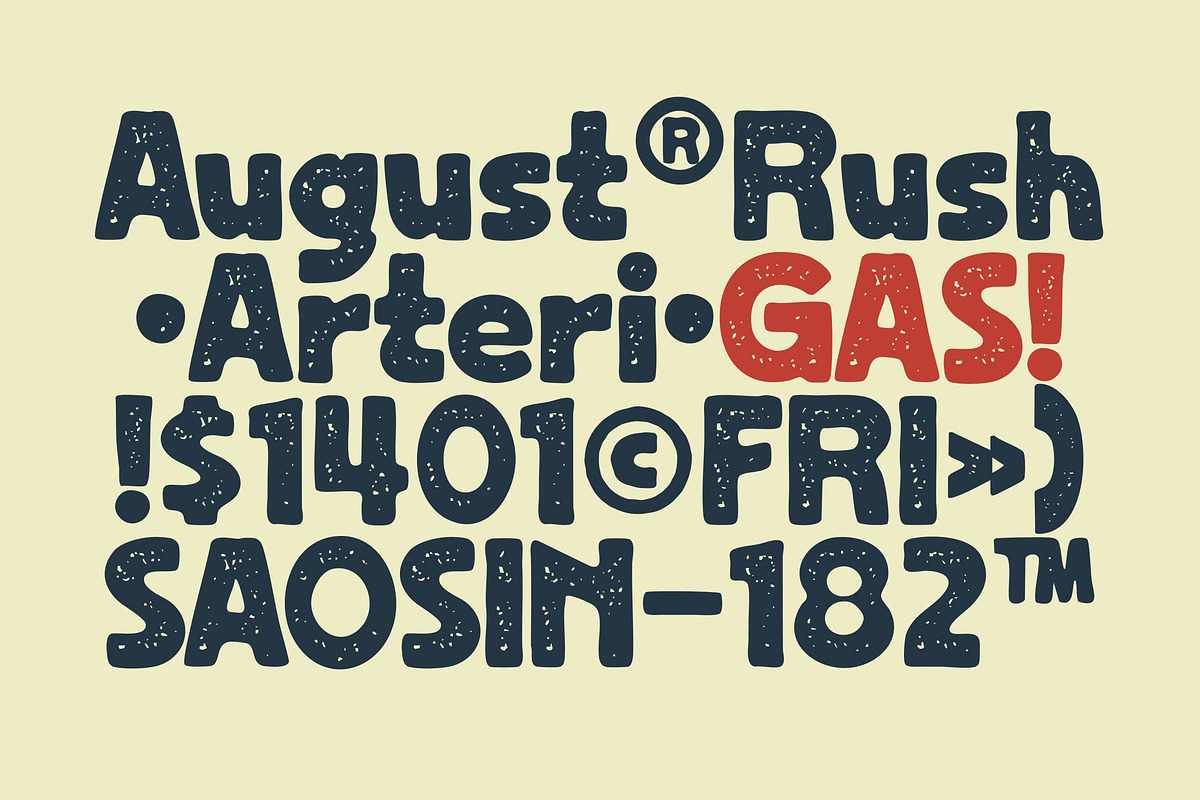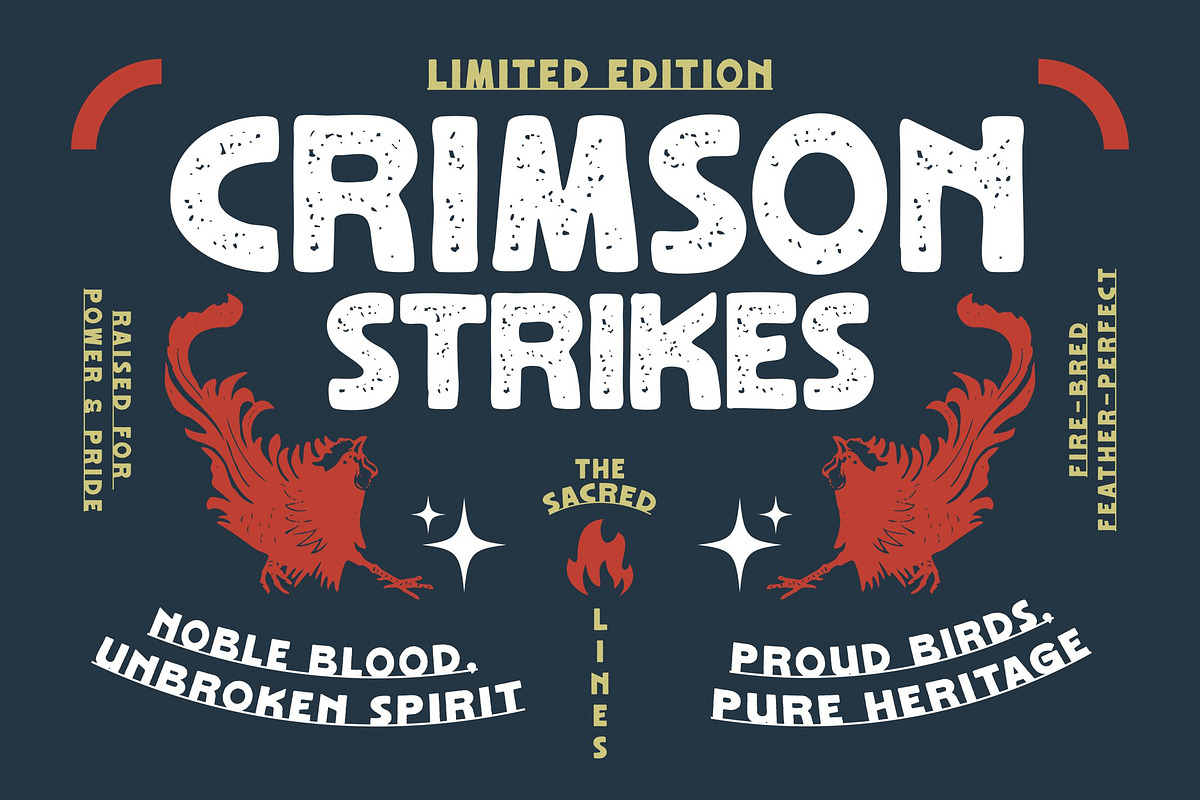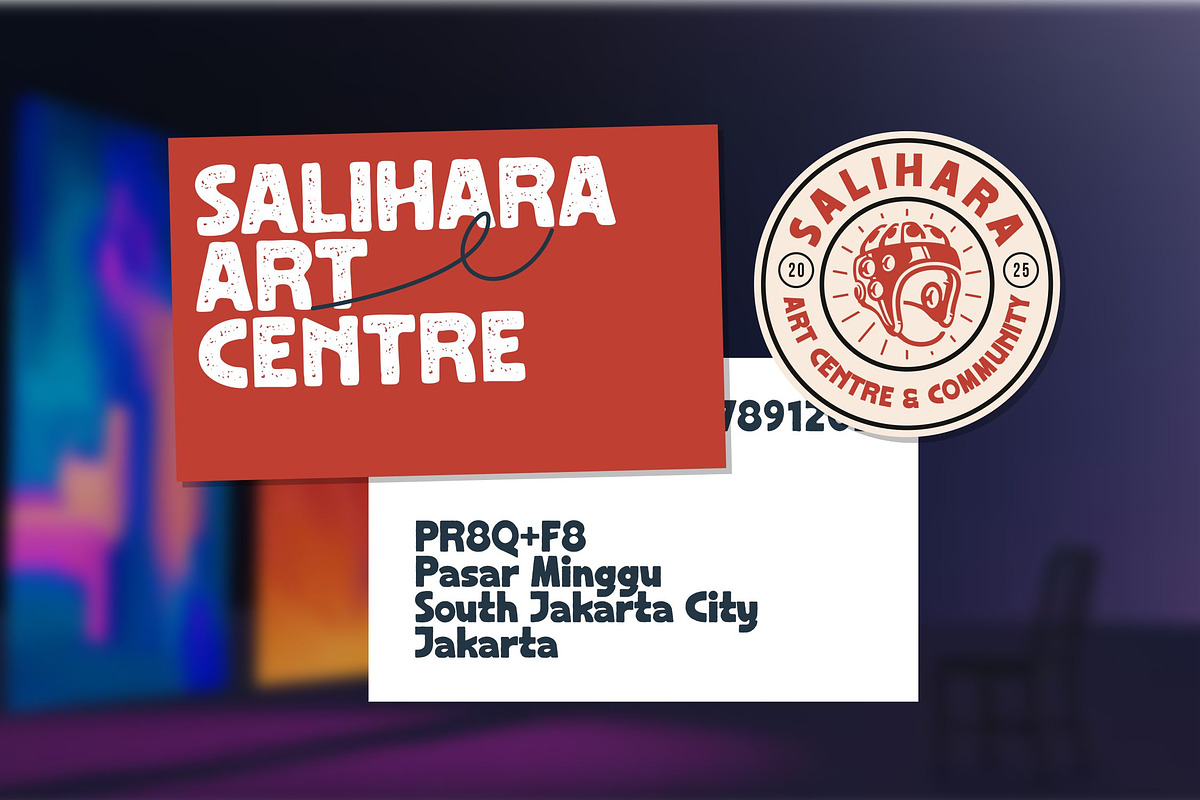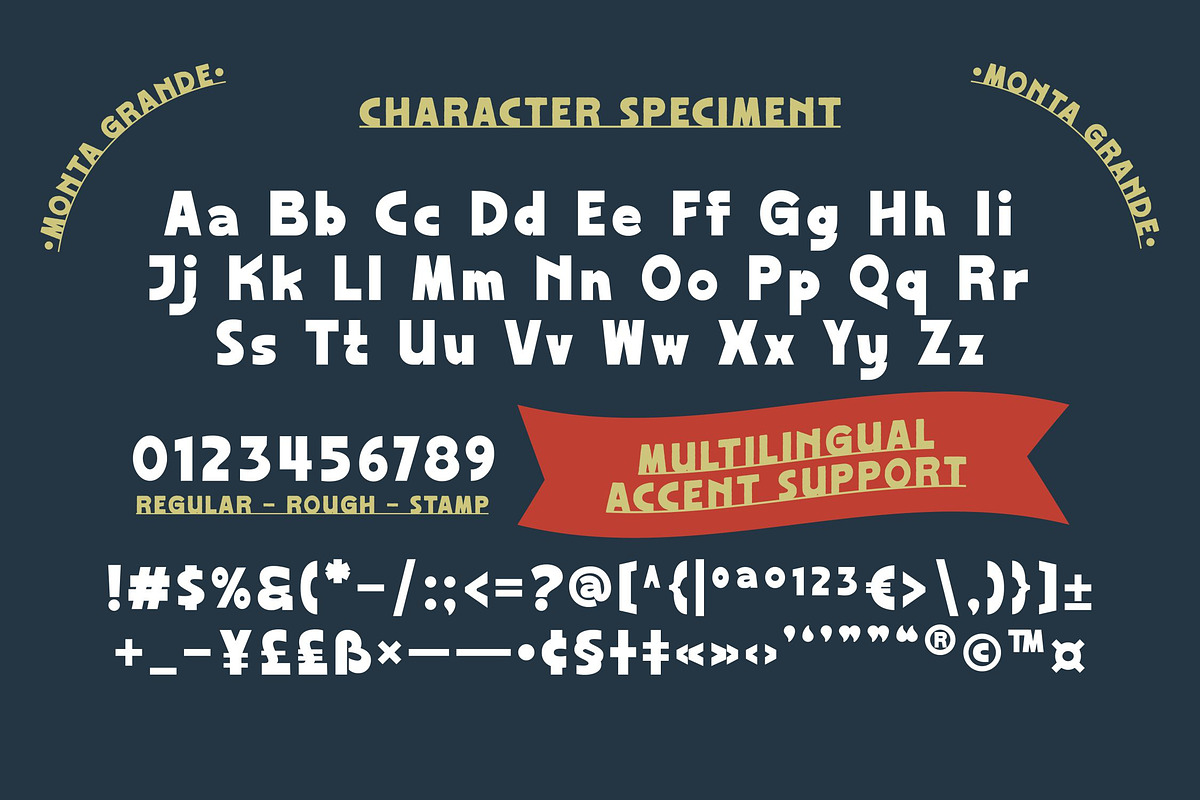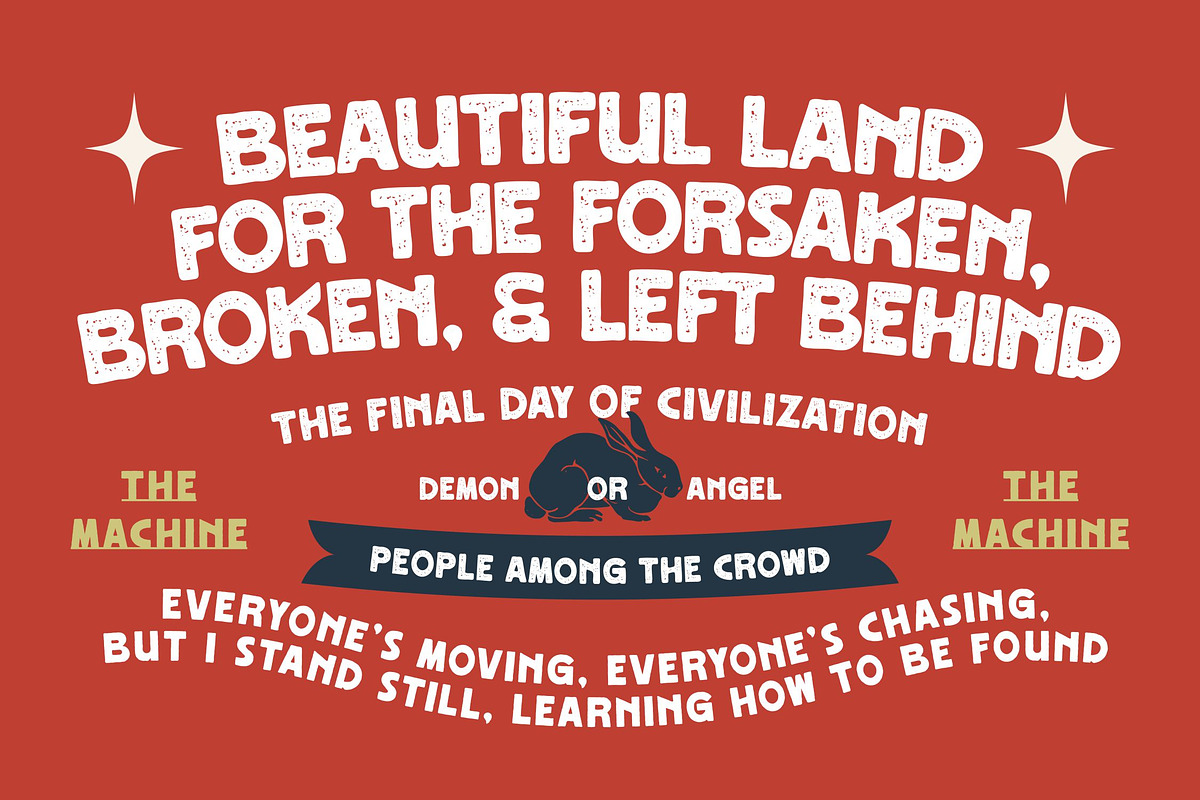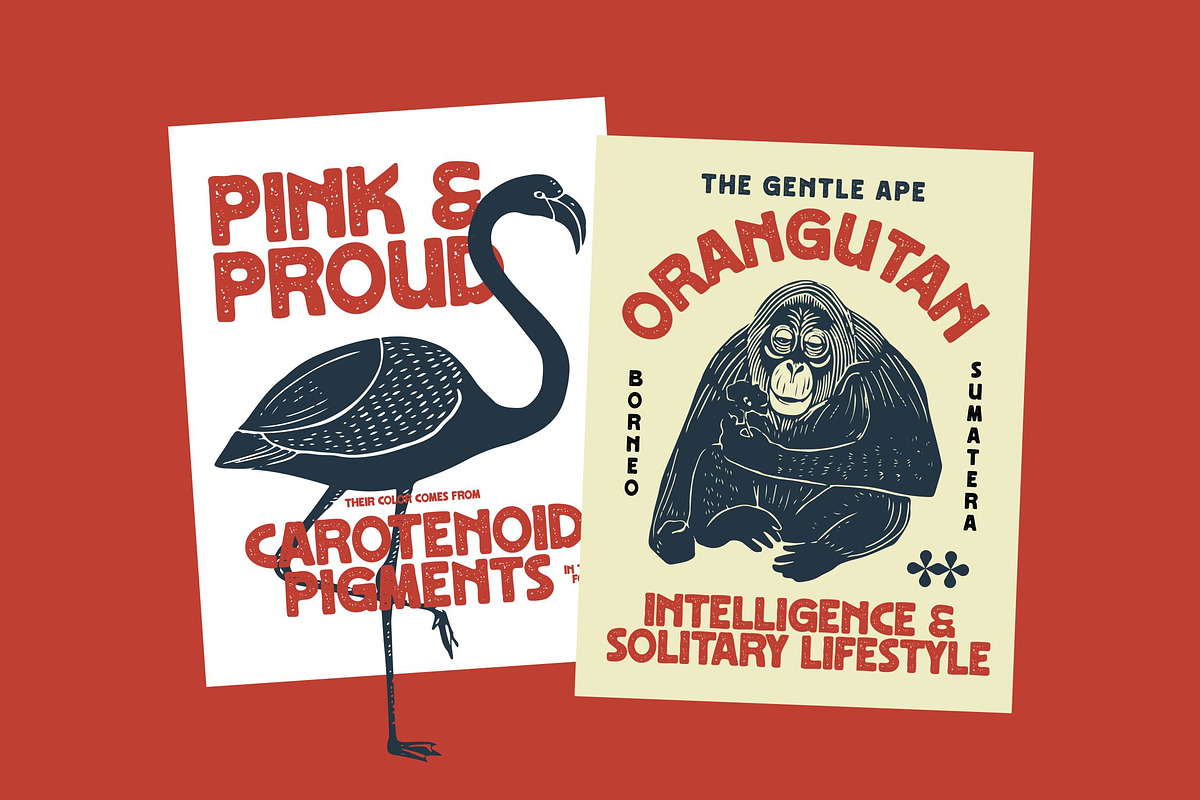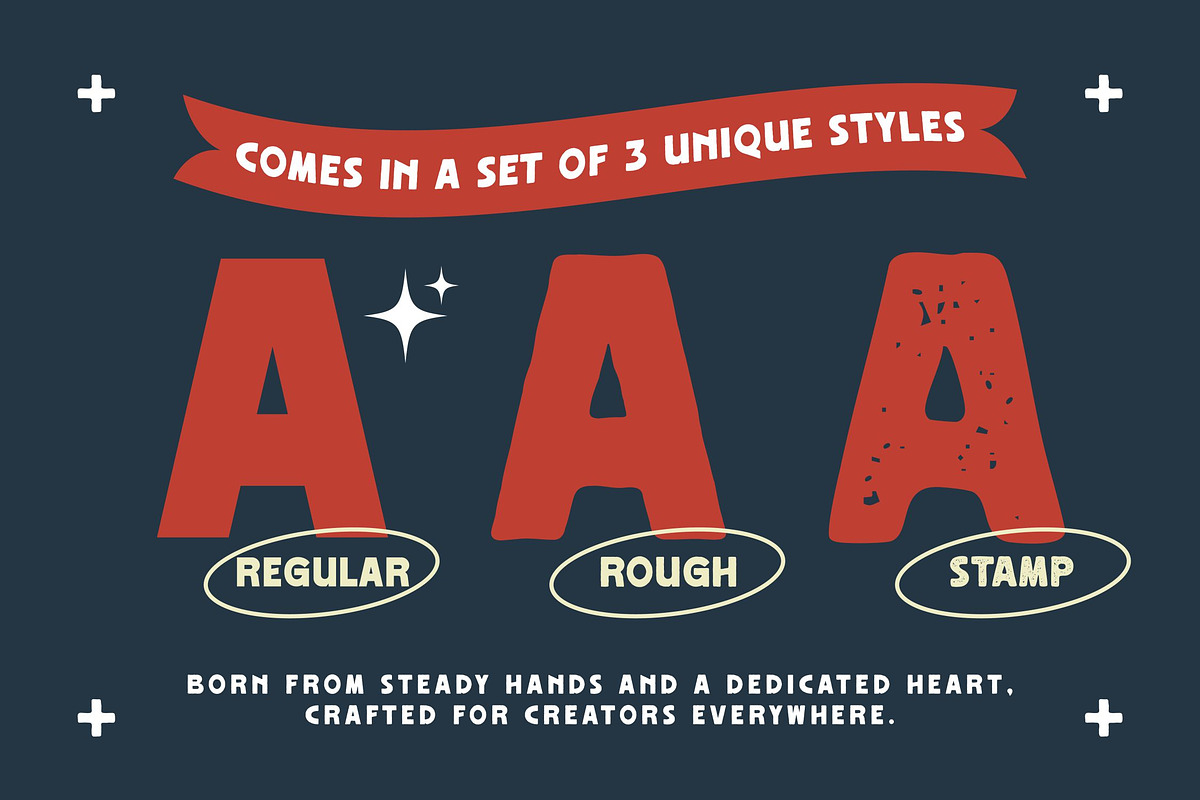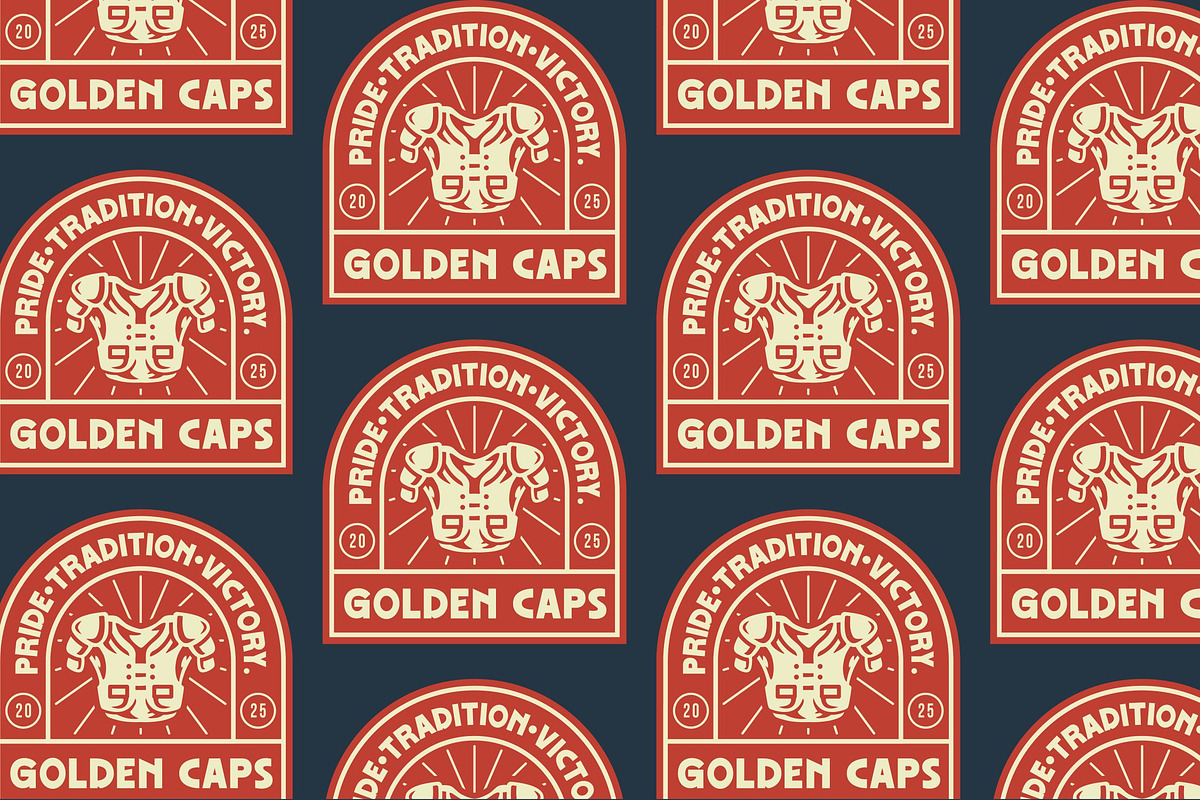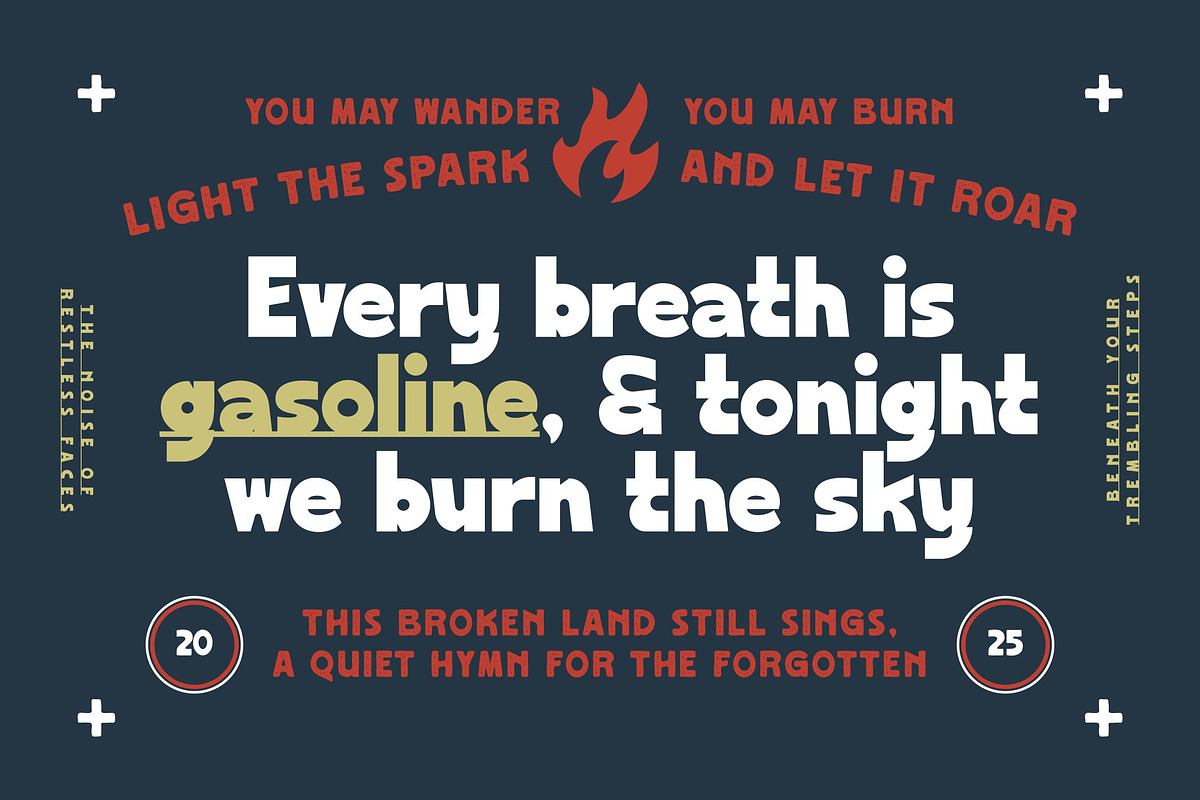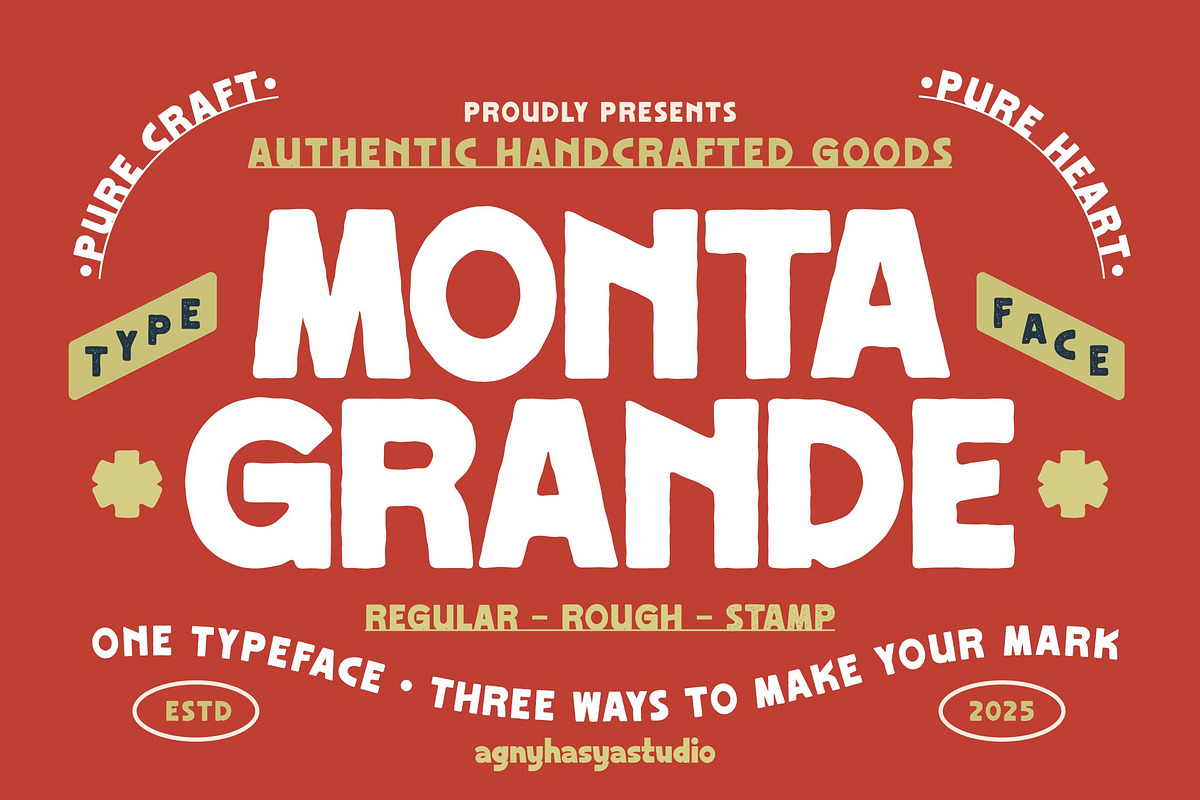
Monta Grande - Vintage Bold Display
Monta Grande is a bold vintage display font designed to add strong character and handcrafted authenticity to your design. Inspired by retro signage, classic packaging, and artisan branding, this typeface offers a timeless and expressive appearance.
This font is available in three distinct styles: Regular, Rough, and Stamp, allowing you to create versatile designs with clean, textured, or distressed finishes. Whether you’re working on logos, coffee branding, apparel, posters, or packaging, Monta Grande provides your project with a bold and memorable identity.
Meticulously crafted with attention to detail, each character features a natural, imperfect touch that enhances its vintage charm while ensuring readability and impact.
Ideal for designers aiming to produce standout visuals with a strong retro personality.